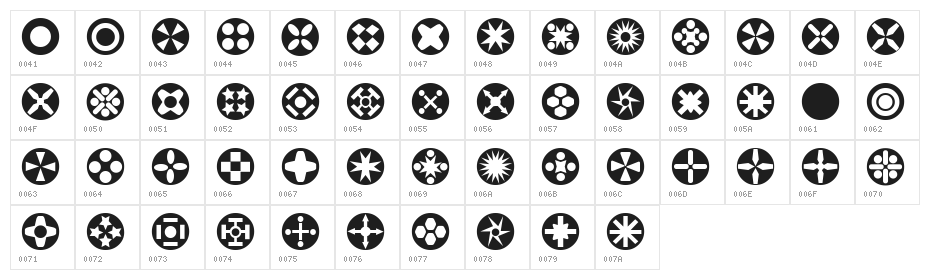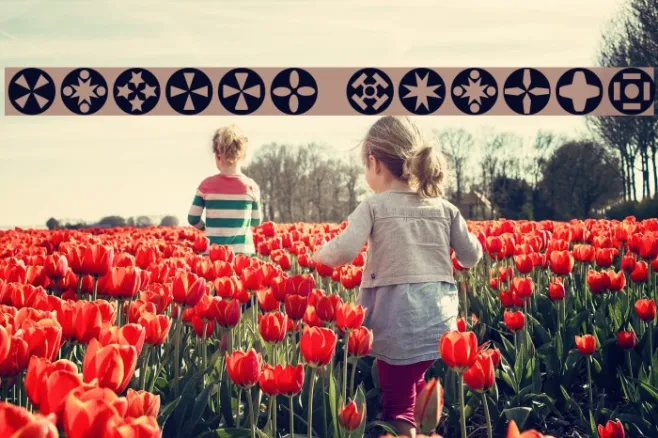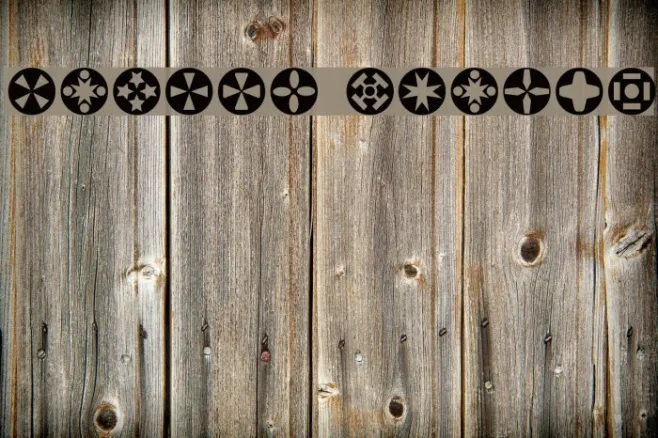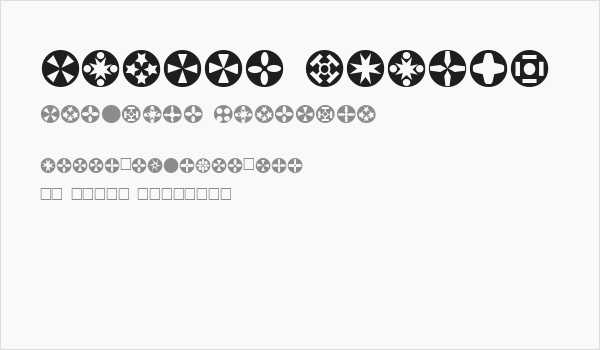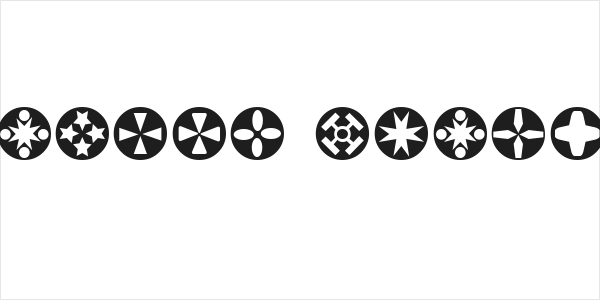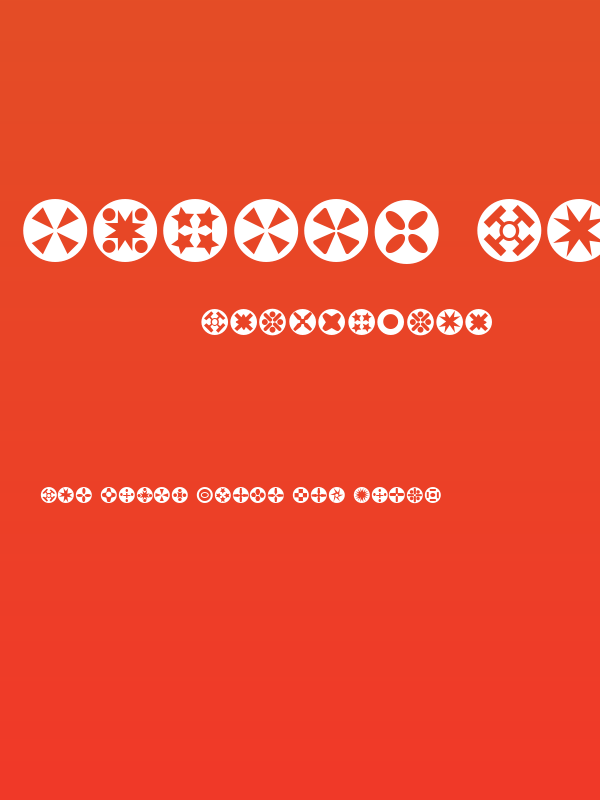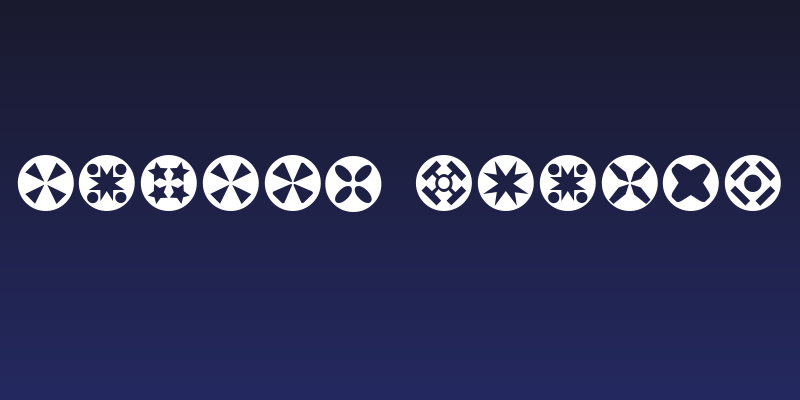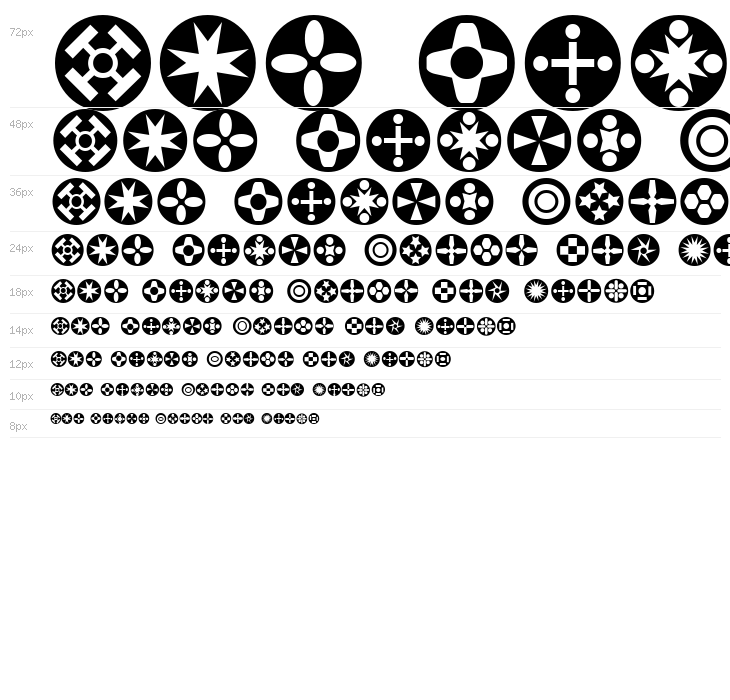
Circle Things Font
Circle Things Description
A geometric dingbat font featuring a variety of bold, high-contrast circular icons with unique internal patterns, including stars, crosses, checkers, and abstract shapes, as well as outlined and filled squares. The glyphs are monospaced and highly stylized, with a modern and decorative appearance.
| Use Case | Icons, Decorative elements, Infographics |
| Proposed Projects | Infographics, UI icons, educational materials, decorative dividers, branding, and playful graphic design. |